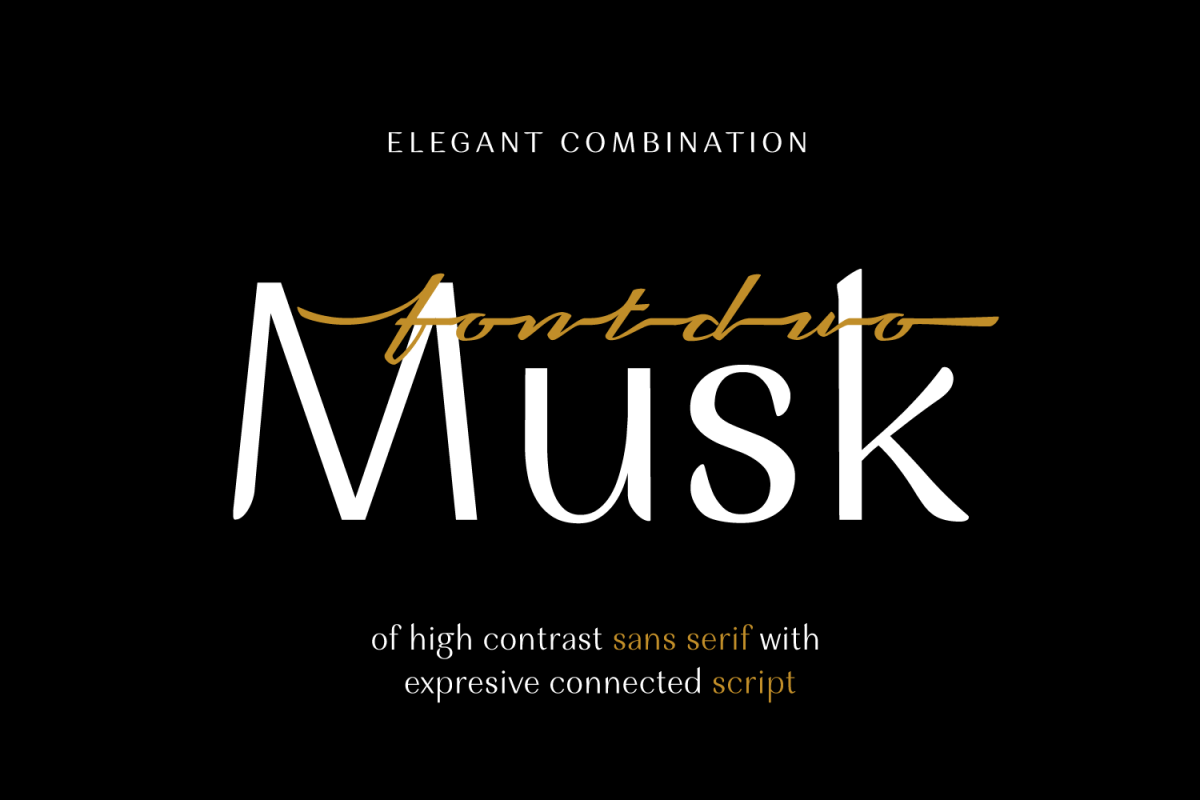
Musk
Musk is a font designed by Eko Bimantara.
Taking the name from subtance of the best quality perfumery, Musk present an elegant form of high contrast sans serif combine with an expresive connected script. The sans serif contain three weight; regular, medium and bold within it’s quality for display and also text. Each glyphs shown an unique variation of forms, especially the terminals in regards to achieve legibility and readability. The sans serif contain three weight; regular, medium and bold within it’s quality for display and legible for body text. With over than 240 glyphs.
Features: Musk Sans contain old style figures and standard ligature and the Musk script contain swash.